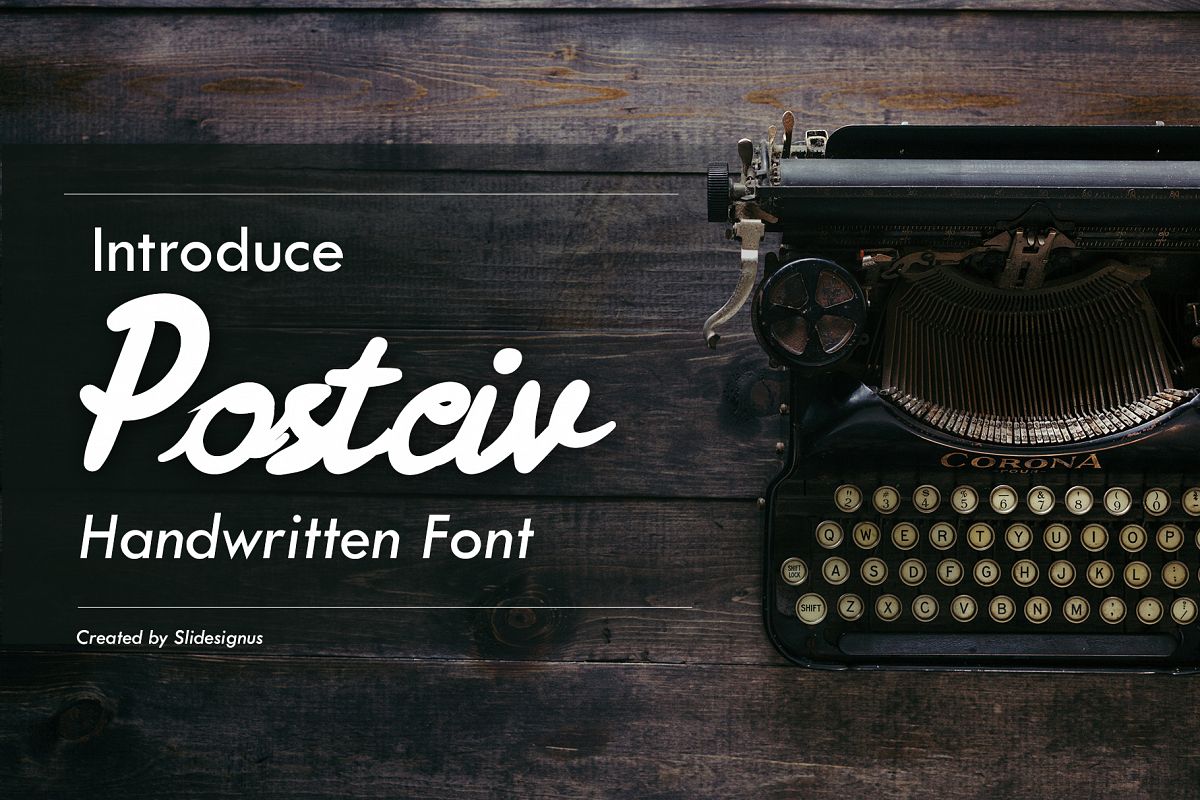
Postciv Font is my first font, here we give you discount just $8 for purchase them, this font full handwritten, Postciv Font is best used for branding, logotype, quotes and etc .